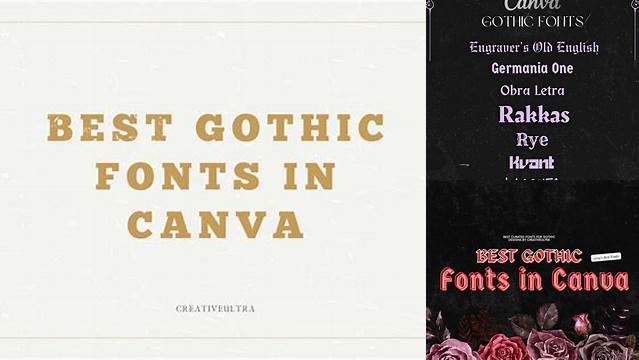
Best Gothic Fonts On Canva: A Designer's Guide
Hey guys! Are you looking to add a touch of darkness and elegance to your designs? Look no further! Gothic fonts are the perfect way to inject a sense of mystery, history, and sophistication into your projects. Whether you're designing a book cover, a poster, or even social media graphics, choosing the right gothic font can make all the difference. Canva, with its user-friendly interface and extensive font library, is a fantastic platform for exploring and implementing these stunning typefaces. In this guide, we'll delve into the world of gothic fonts, explore some of the best gothic fonts available on Canva, and give you tips on how to use them effectively. So, let's dive in and unleash the power of gothic typography!
What are Gothic Fonts?
So, what exactly are gothic fonts? Well, the term "gothic" in typography refers to a style of lettering that originated in Europe during the Middle Ages. Also known as blackletter or Old English fonts, these typefaces are characterized by their dramatic, ornate letterforms, often featuring thick strokes, sharp angles, and elaborate curves. Gothic fonts evoke a sense of history, tradition, and even the macabre, making them a popular choice for designs that aim to convey a sense of timelessness, mystery, or grandeur. They're not just for spooky Halloween projects, guys! Gothic fonts can be used in a variety of contexts, from branding and logos to invitations and editorial design. The key is to understand the nuances of each font and use it appropriately to achieve the desired effect. When we talk about gothic fonts, we're really talking about a family of typefaces that share these common characteristics but also have their unique personalities. Some are more formal and traditional, while others have a more modern or stylized feel. This variety makes gothic fonts a versatile tool in any designer's arsenal. Choosing the right gothic font can be a game-changer, adding a distinct flavor to your projects and helping you stand out from the crowd. But with so many options available, how do you pick the perfect one? Don't worry, we'll get to that! We'll explore some of the best gothic fonts on Canva and give you some tips on how to use them effectively.
Why Use Gothic Fonts in Your Designs?
Now, you might be wondering, why should I even bother using gothic fonts in my designs? Well, there are several compelling reasons! Gothic fonts bring a unique aesthetic that can instantly elevate your work. First and foremost, gothic fonts add a touch of drama and sophistication. Their ornate letterforms and strong presence command attention, making them ideal for headlines, titles, and other prominent text elements. If you want to make a statement, a well-chosen gothic font is your best friend. Think about it – these fonts were used in illuminated manuscripts and ancient texts, so they carry a sense of history and gravitas. They can instantly transport your audience to another time and place, adding depth and intrigue to your design. Beyond their aesthetic appeal, gothic fonts can also convey specific moods and themes. They're often associated with mystery, darkness, and the supernatural, making them perfect for projects related to horror, fantasy, or the occult. But don't limit yourself! Gothic fonts can also be used to create a sense of elegance and tradition, particularly in designs related to weddings, anniversaries, or historical events. It's all about context, guys! The way you use a gothic font can completely change its impact. Think about the overall message you're trying to convey and choose a font that aligns with your vision. For example, a bold, dramatic gothic font might be perfect for a movie poster, while a more delicate and refined gothic font could be ideal for a wedding invitation. In addition to their aesthetic and thematic qualities, gothic fonts can also help you stand out from the crowd. In a world saturated with modern, sans-serif typefaces, using a gothic font can give your designs a unique and memorable edge. It's a way to express your creativity and show that you're not afraid to break the mold. So, if you're looking for a way to add some personality and flair to your designs, gothic fonts are definitely worth exploring!
Best Gothic Fonts Available on Canva
Alright, let's get to the good stuff! Canva boasts a fantastic selection of gothic fonts, catering to various styles and design needs. Here are some of the best ones you can find on Canva, along with tips on how to use them effectively:
1. Blackletter
Blackletter is a classic gothic typeface that embodies the traditional characteristics of the style. With its bold strokes, sharp angles, and ornate letterforms, Blackletter exudes a sense of history and grandeur. This font is perfect for projects that require a strong, authoritative presence, such as book covers, posters, and logos. Imagine using Blackletter for the title of a historical fiction novel or the logo of a high-end brand – it instantly conveys a sense of quality and sophistication. But be careful, guys! Blackletter's intricate design can make it challenging to read in smaller sizes, so it's best reserved for headlines and other prominent text elements. When using Blackletter, consider pairing it with a simpler sans-serif font for body text to ensure readability. This creates a visual contrast that highlights the gothic font while keeping the overall design clean and balanced. Think about using Blackletter for a vintage-inspired poster or an elegant invitation. Its classic gothic style will add a touch of timeless charm to any project.
2. UnifrakturMagdeburg
UnifrakturMagdeburg is another excellent gothic font option on Canva, offering a slightly more modern and readable take on the classic blackletter style. While it retains the characteristic thick strokes and sharp angles, UnifrakturMagdeburg has a cleaner, more streamlined design that makes it easier to read in various sizes. This makes it a versatile choice for a wide range of projects, from website headers to social media graphics. Guys, UnifrakturMagdeburg is a fantastic option if you want the gothic feel without sacrificing readability. It's perfect for projects where you need to convey a sense of tradition and elegance, but also want to ensure that your message is clear and concise. Think about using UnifrakturMagdeburg for a website header or a social media post. Its slightly more modern design will help your content stand out while remaining easy to read. When using UnifrakturMagdeburg, experiment with different font weights and sizes to find the perfect balance for your design. You can also pair it with a contemporary sans-serif font to create a visually appealing contrast. This font is a great way to add a touch of gothic flair to your projects without going overboard. Its readability and versatility make it a valuable asset in any designer's toolkit.
3. Fraktur
Fraktur is a widely recognized gothic typeface known for its distinctive broken letterforms and intricate details. This font exudes a sense of history and tradition, making it a popular choice for projects that aim to evoke a vintage or old-world feel. Fraktur is often used in historical documents, certificates, and other formal designs, adding a touch of elegance and authenticity. However, guys, it's important to note that Fraktur can be quite challenging to read, especially in smaller sizes or longer blocks of text. Its ornate letterforms and sharp angles require careful attention to spacing and kerning to ensure readability. Therefore, Fraktur is best used sparingly, primarily for headlines, titles, and other prominent text elements. Think about using Fraktur for a wedding invitation or a certificate of achievement. Its classic gothic style will add a touch of formality and sophistication to your design. When using Fraktur, consider pairing it with a simpler sans-serif font for body text to improve readability. This creates a visual contrast that highlights the gothic font while ensuring that the overall message is clear and concise. Fraktur is a powerful font that can add a lot of character to your designs, but it's crucial to use it judiciously to avoid sacrificing readability.
4. Cloister Black
Cloister Black is a bold and dramatic gothic font that commands attention with its strong presence and intricate details. This typeface is characterized by its thick strokes, sharp serifs, and elaborate letterforms, exuding a sense of power and authority. Cloister Black is an excellent choice for projects that require a strong visual impact, such as posters, flyers, and book covers. Guys, if you want to make a statement, Cloister Black is the font for you! Its bold and dramatic style will instantly grab your audience's attention. Think about using Cloister Black for a movie poster or a concert flyer. Its strong presence will help your design stand out from the crowd. However, like other intricate gothic fonts, Cloister Black can be challenging to read in smaller sizes. Therefore, it's best used for headlines and other prominent text elements. When using Cloister Black, consider pairing it with a simpler sans-serif font for body text to ensure readability. This creates a visual contrast that highlights the gothic font while keeping the overall design clean and balanced. Cloister Black is a versatile font that can be used in a variety of contexts, from edgy and modern designs to more traditional and formal projects. Its bold style and intricate details make it a valuable asset in any designer's toolkit.
5. Gothics
Gothics on Canva presents a slightly different take on the gothic style, often incorporating more modern and stylized elements. These fonts may feature cleaner lines, simplified letterforms, or unique decorative details, making them suitable for a broader range of design applications. Guys, if you're looking for a gothic font that's a bit more contemporary and versatile, exploring the "Gothics" category on Canva is a great place to start. These fonts can be used in a variety of projects, from branding and logos to social media graphics and website design. Think about using a modern gothic font for a website header or a social media post. Its unique style will help your content stand out while maintaining a touch of sophistication. When using modern gothic fonts, experiment with different font weights, sizes, and colors to find the perfect balance for your design. You can also pair them with other contemporary typefaces to create a visually appealing and cohesive look. The key is to choose a gothic font that complements your overall design aesthetic and effectively conveys your message. Modern gothic fonts offer a fresh and exciting take on the classic style, allowing you to create designs that are both timeless and contemporary. They're a great way to add a touch of personality and flair to your projects without sacrificing readability or visual appeal.
Tips for Using Gothic Fonts Effectively
Okay, you've chosen your gothic font, now what? Here are some tips to help you use gothic fonts effectively and create stunning designs:
- Readability is Key: Remember, gothic fonts can be intricate and challenging to read. Use them sparingly, primarily for headlines and titles. Pair them with simpler fonts for body text to ensure your message is clear.
- Consider the Context: The mood and theme of your project should guide your font choice. A bold, dramatic gothic font might be perfect for a horror movie poster, but not so much for a wedding invitation. Guys, think about the message you're trying to convey and choose a font that aligns with your vision.
Gothic fonts are a powerful tool for adding drama, sophistication, and a touch of history to your designs. Canva offers a fantastic selection of gothic typefaces, allowing you to explore the possibilities of this unique style. By understanding the characteristics of gothic fonts and following the tips outlined in this guide, you can effectively use them to create stunning and memorable designs. So, go ahead, guys, and unleash the power of gothic typography! Experiment, have fun, and let your creativity shine!